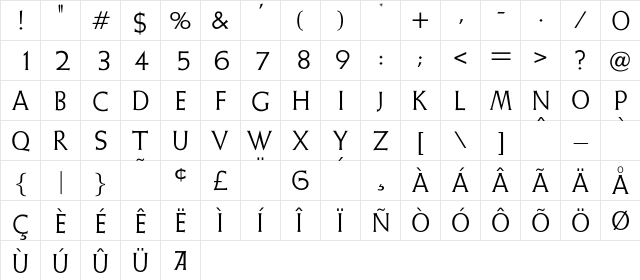
OPTIWeissInitials-Two Regular
Design Context for OPTIWeissInitials-Two Typeface
OPTIWeissInitials-Two takes a measured approach to typography — its balanced proportions and neutral character make it a reliable workhorse for both digital and print work.